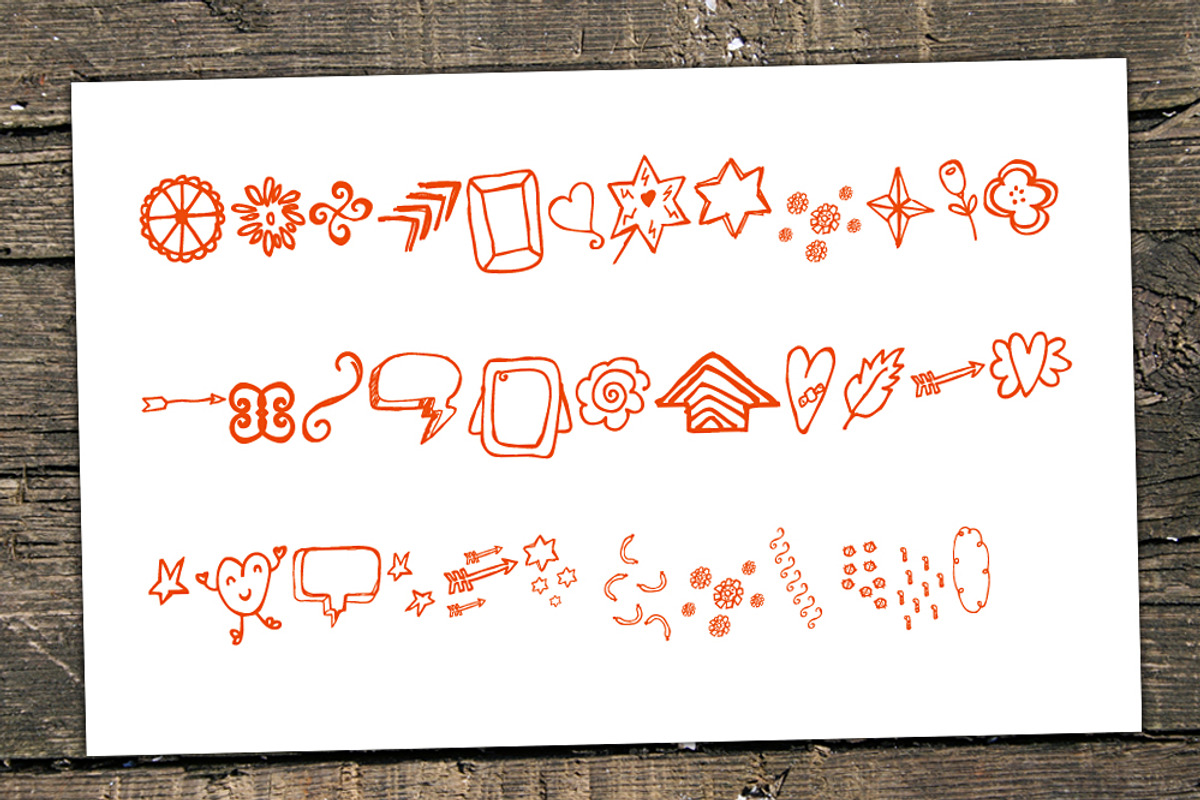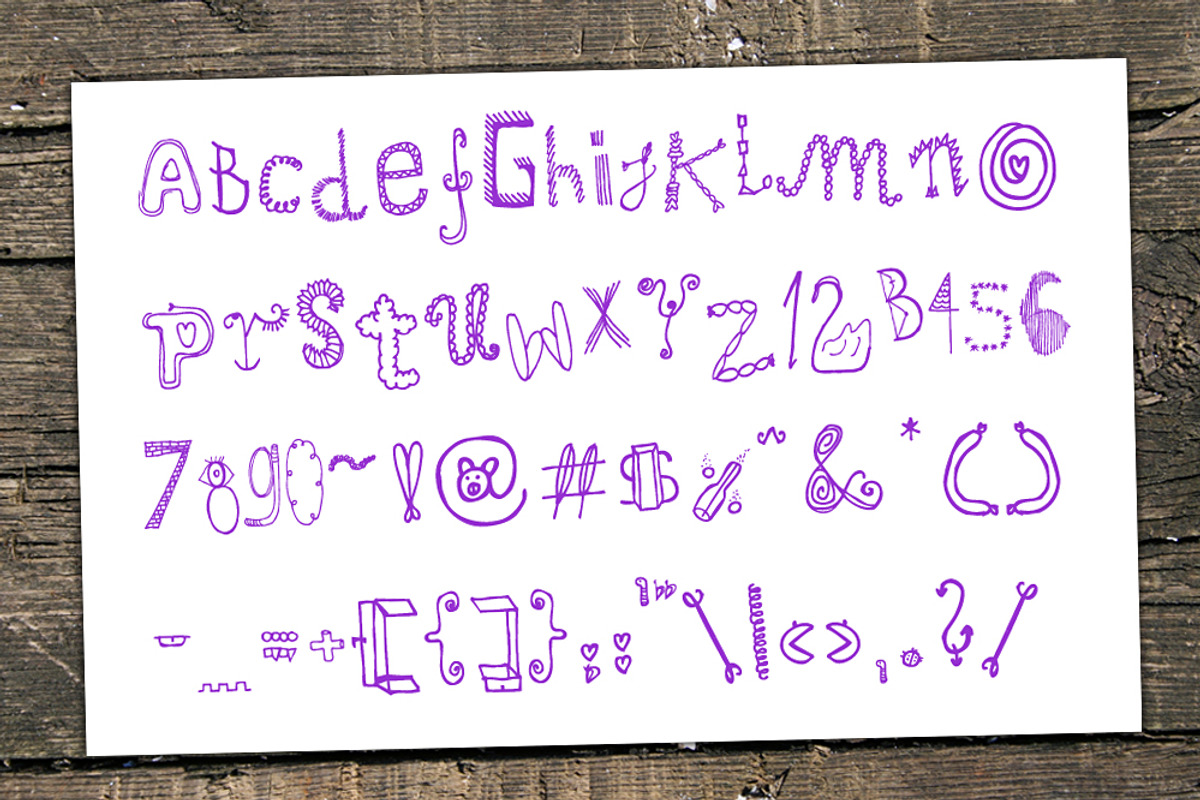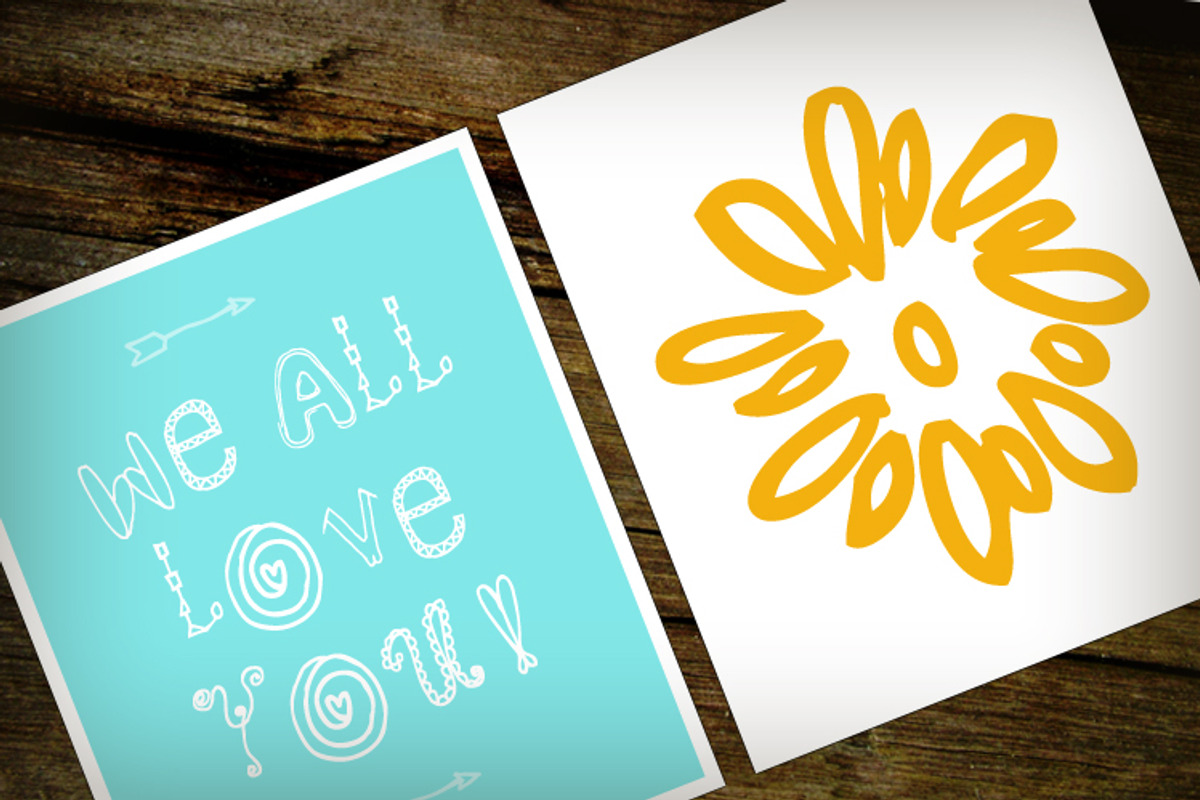
Mrs Doodle Fonts
Mrs Doodle Fonts by Frisk Shop is a font selected for branding, posters, packaging, typography.
Why Mrs Doodle Fonts is worth a look
Mrs Doodle Fonts by Frisk Shop fits naturally into Branding, posters, packaging, typography.